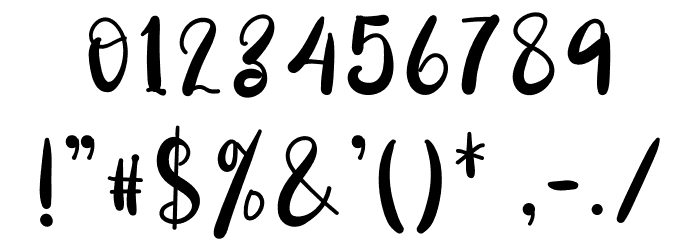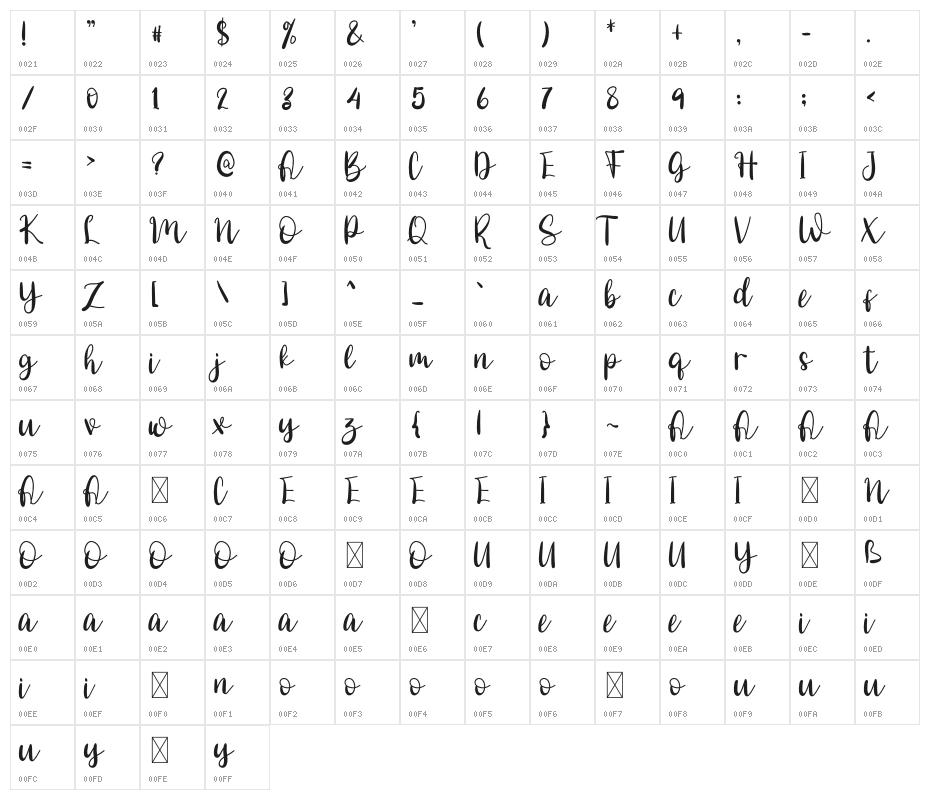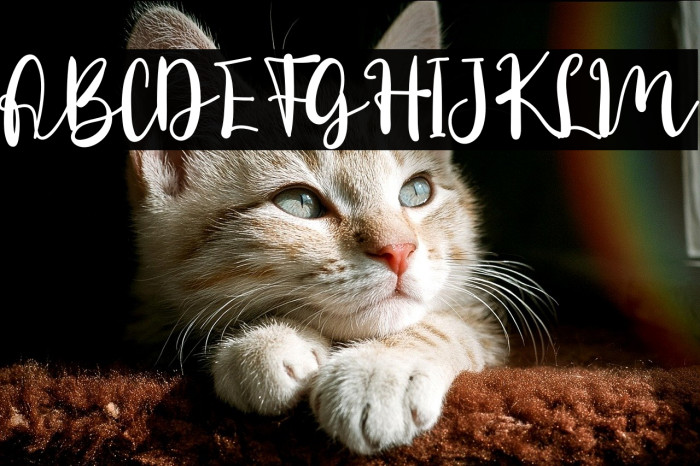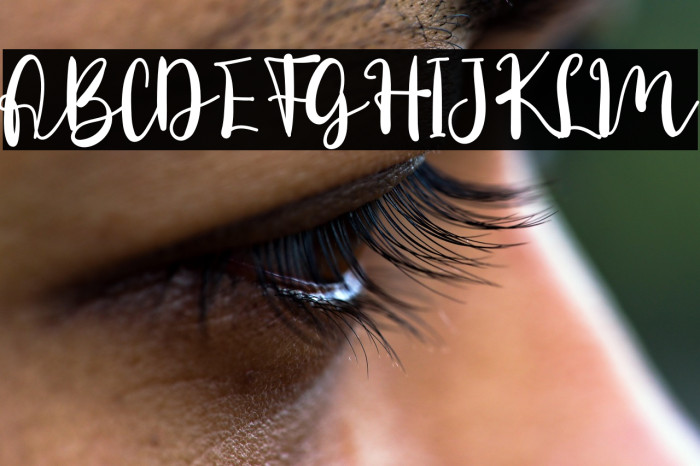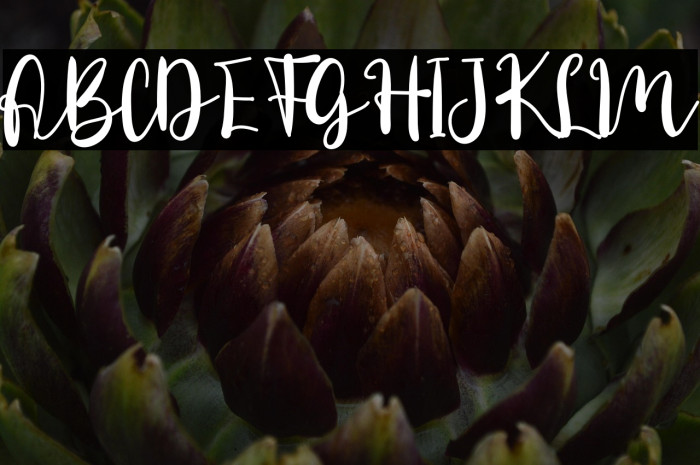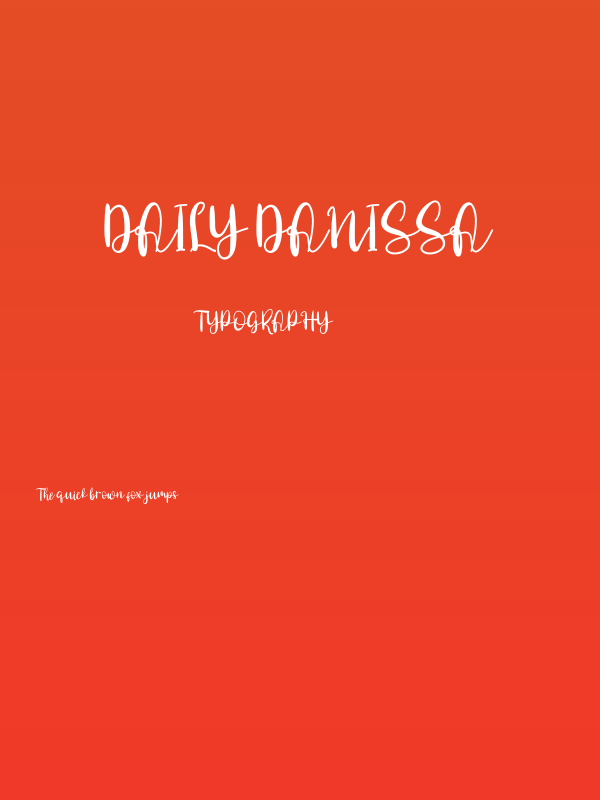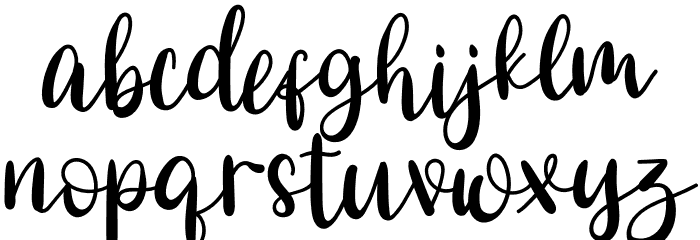
Daily Danissa Font
Daily Danissa Description
This font exudes a playful and artistic flair, characterized by its flowing, cursive style that mimics the natural strokes of handwriting. The uppercase letters are bold and dynamic, with unique flourishes that add a touch of elegance and whimsy. The lowercase letters maintain a consistent flow, with smooth curves and loops that enhance readability while retaining a casual, friendly appearance. Numbers and special characters are crafted with the same attention to detail, ensuring a cohesive look across all elements. This font is ideal for projects that require a personal, handcrafted touch, such as invitations, greeting cards, or branding materials that aim to convey warmth and creativity.